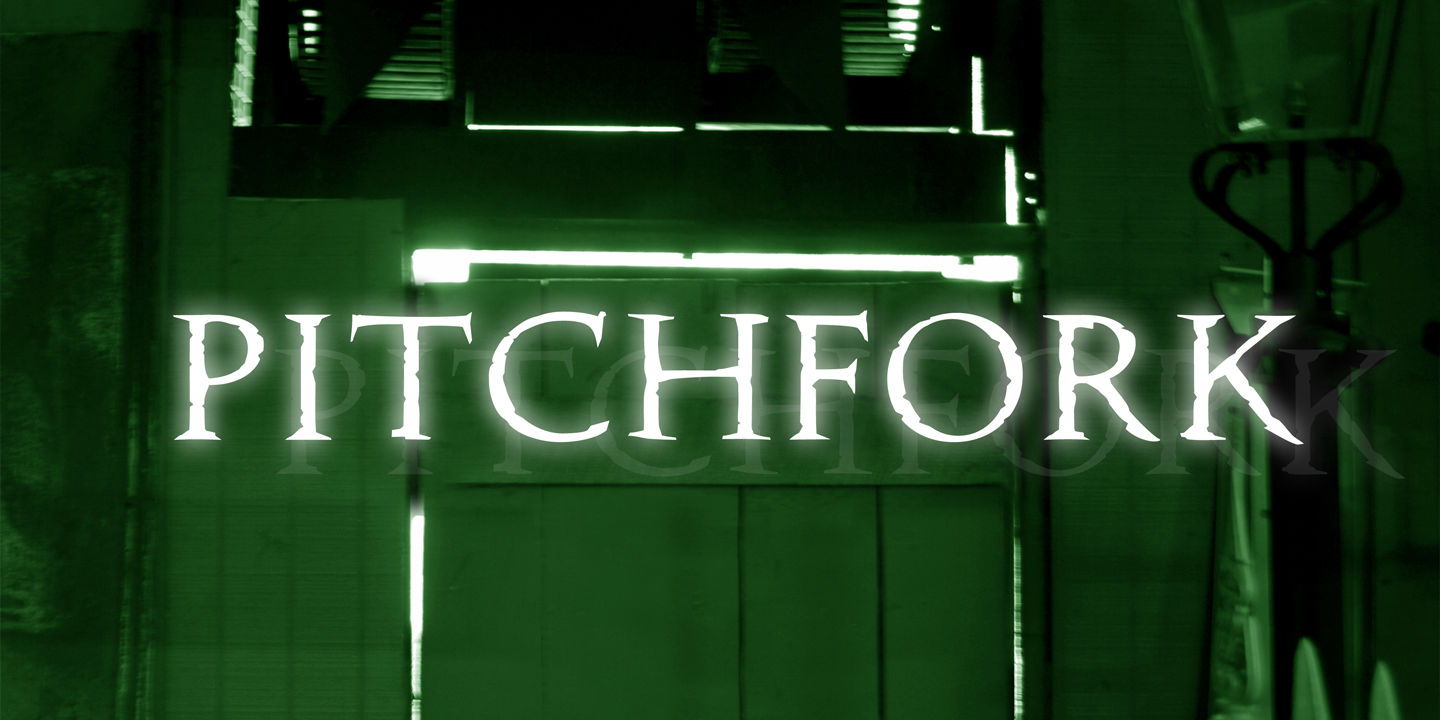
Pitchfork Font is perfect for agricultural business branding, farm-to-table restaurant signage, rural lifestyle marketing, farming equipment advertising, agricultural festival promotions, country music venue graphics, rustic outdoor signage, harvest celebration materials, rural community communications, and authentic countryside advertising.
What makes Pitchfork Font exciting is its authentic farmhouse character that perfectly captures the honest work ethic and rural tradition found in agricultural heritage and countryside living. This typeface features sturdy letterforms with farm-inspired proportions and agricultural details that evoke the dependable strength and hardworking spirit of farming communities and rural craftsmanship. The font's rustic personality and agricultural authenticity make it ideal for rural brands seeking to convey tradition, honest work, and the authentic values that come from farming heritage and countryside community traditions.
Pitchfork Font family includes hardworking weight variations and farm-inspired alternatives that enhance its agricultural appeal while providing design flexibility for rural and farming applications. The font features sturdy ligatures, farm-themed ornaments, and agricultural character variations that create authentic countryside atmosphere for farming and rural branding.
Agricultural businesses and rural lifestyle brands consistently choose Pitchfork Font Free Download for projects requiring authentic farming appeal and rural credibility. The font's hardworking character excels in applications targeting farmers, rural communities, and countryside enthusiasts who appreciate genuine agricultural values and farming traditions. Whether you're designing for farms, agricultural suppliers, or rural lifestyle products, this authentic typeface delivers the farming authenticity and countryside character that resonates with audiences seeking genuine rural values and the honest work ethic that defines agricultural heritage and farming community traditions.